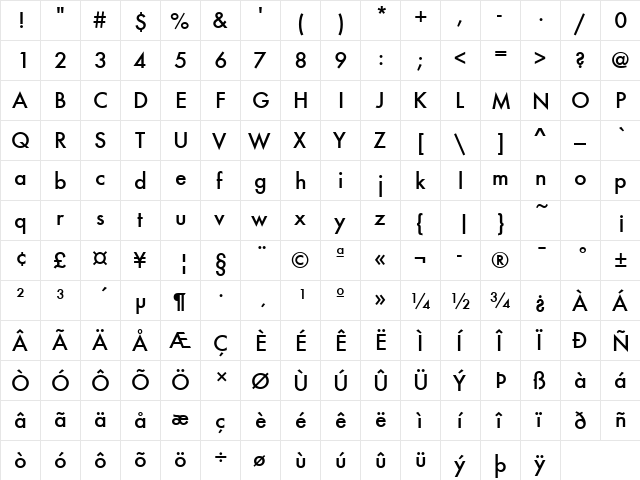
FuturaTMed Regular
Design Context for FuturaTMed Typeface
FuturaTMed channels digital-age aesthetics through its sharp, structured letterforms — ideal for brands that want to signal innovation.
Pro Tip: Use FuturaTMed in combination with a neutral sans for body text. Let it define the brand voice in headlines while keeping reading comfortable elsewhere.